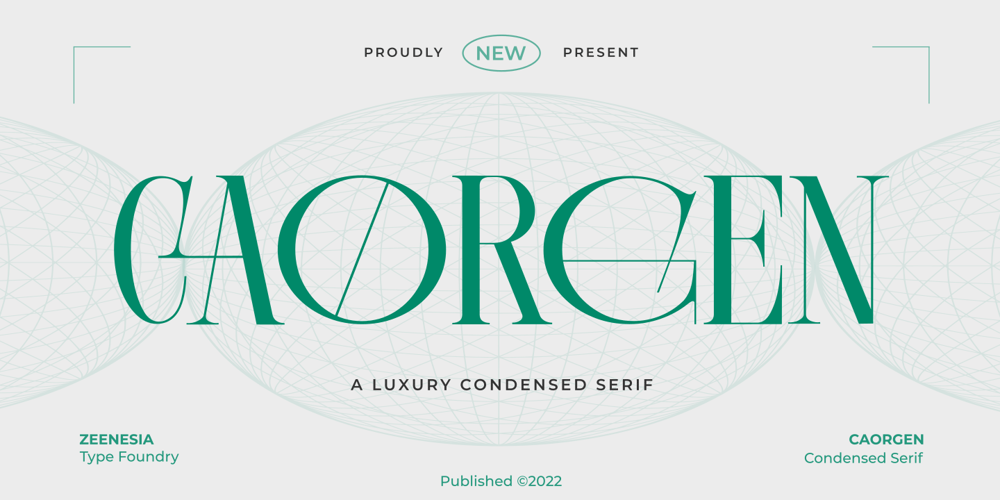
Caorgen Font Family was designed by Doni Purwoko and published by Zeenesia Studio. Caorgen contains 1 styles and family package options. Introducint CaorgenCaorgen is a Condensed modern display font with serif style. It’s modern and classic font with a unique and deference look . Perfect if you need a dose of fun in your project. Perfect for editorial projects, Logo design, web font, clothing branding, product packaging, magazine headers, or simply as a stylish text overlay to any background image.